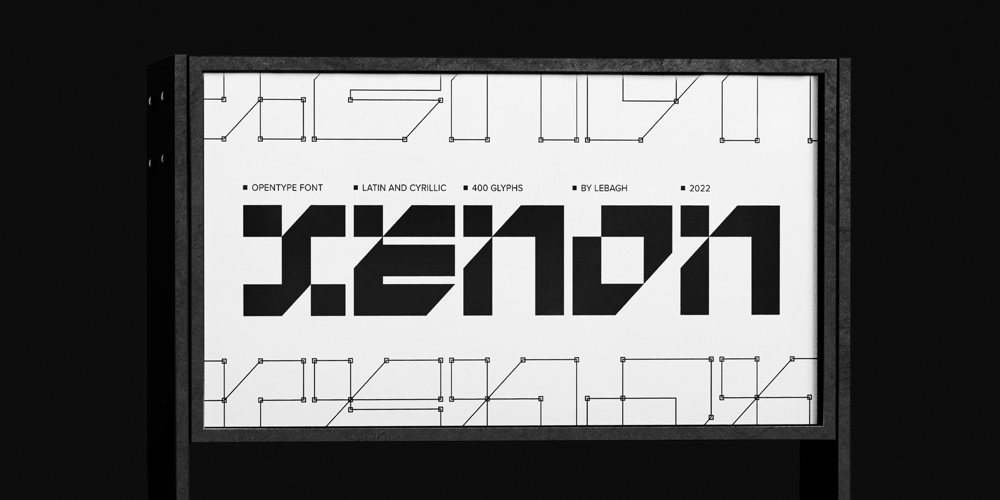
Xenon Font Family was designed by Leyla Baghirzade and published by Lebagh. Xenon contains 1 styles and family package options. “Xenon” is a single upper and lowercase font with an edgy and brutal look, well suited for poster designs, logos, headlines, and experimental typography. Supporting both Cyrillic and Latin alphabets, it contains more than 400 glyphs.